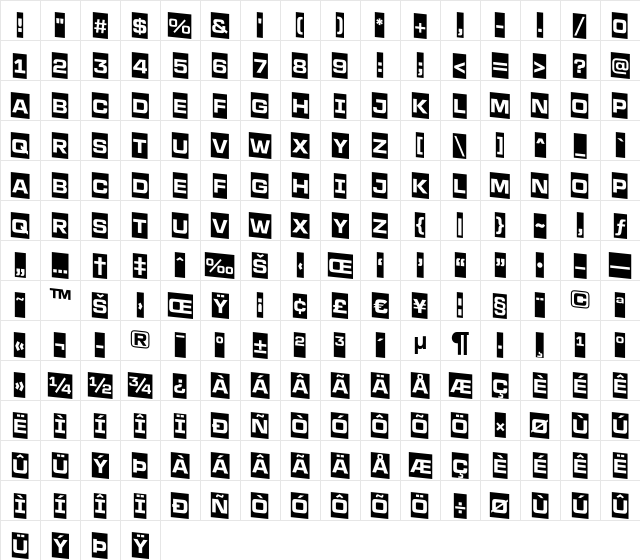
Complete a_LineaSansCmDn Bold glyph index. Displaying only characters natively supported by a_LineaSansCmDn Bold font.
a_LineaSansCmDn is a composed and adaptable typeface that performs quietly and consistently across a wide range of design contexts. Its bold stroke weight gives it real presence on the page.